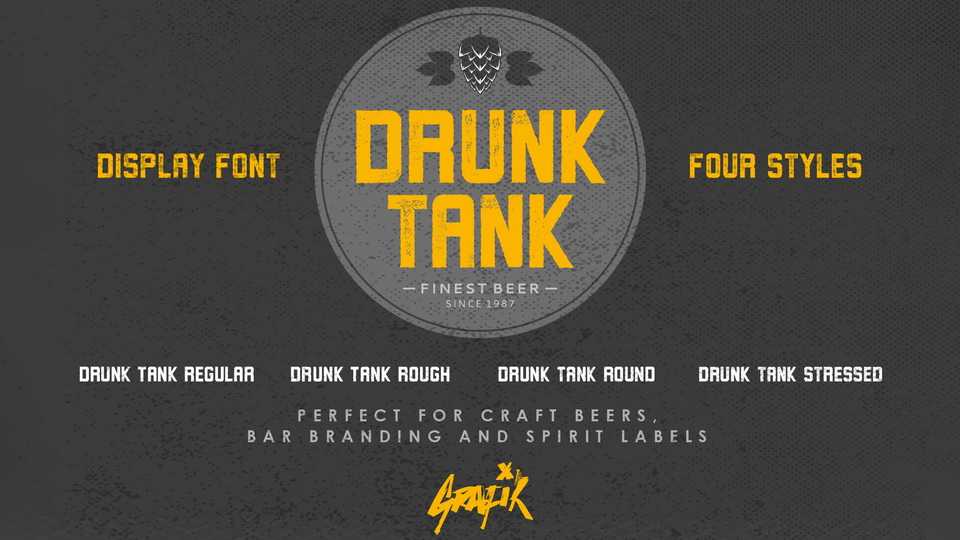
Download Drunk Tank typeface, a display font family in four styles inspired by The Pogues. Drunk Tank fonts are perfect for craft beer branding, spirit label design, graphic design for bars and vintage design.